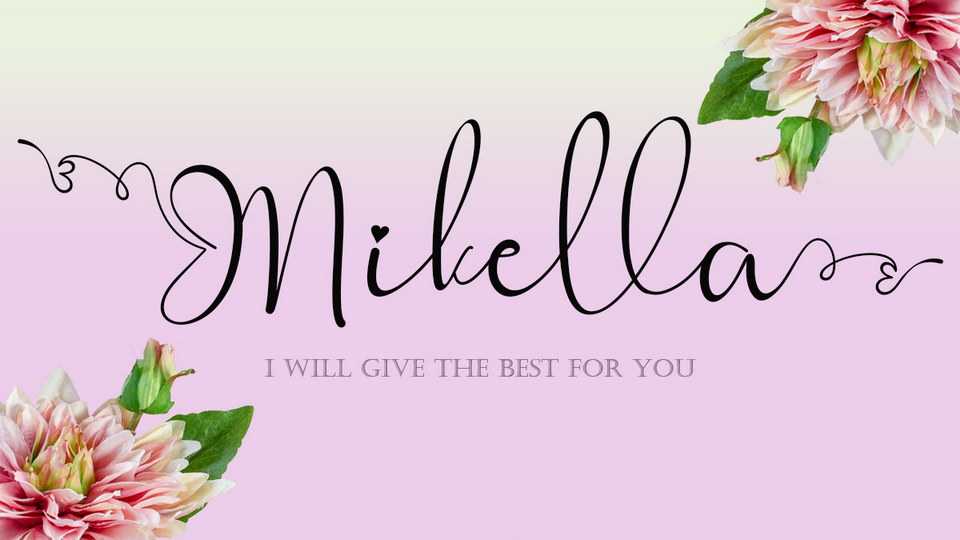
Download Mikella font, a modern handwritten script, a very beautiful and elegant. Besides that, Mikella is also very unique and can enhance your work.